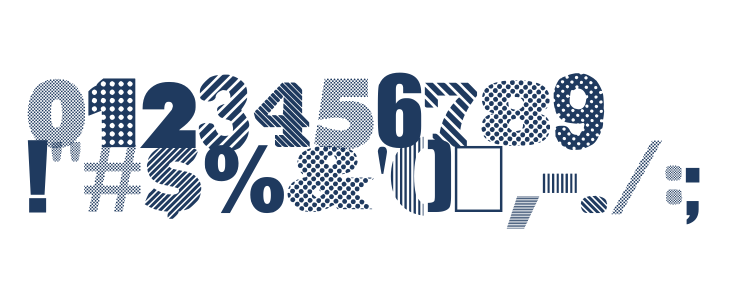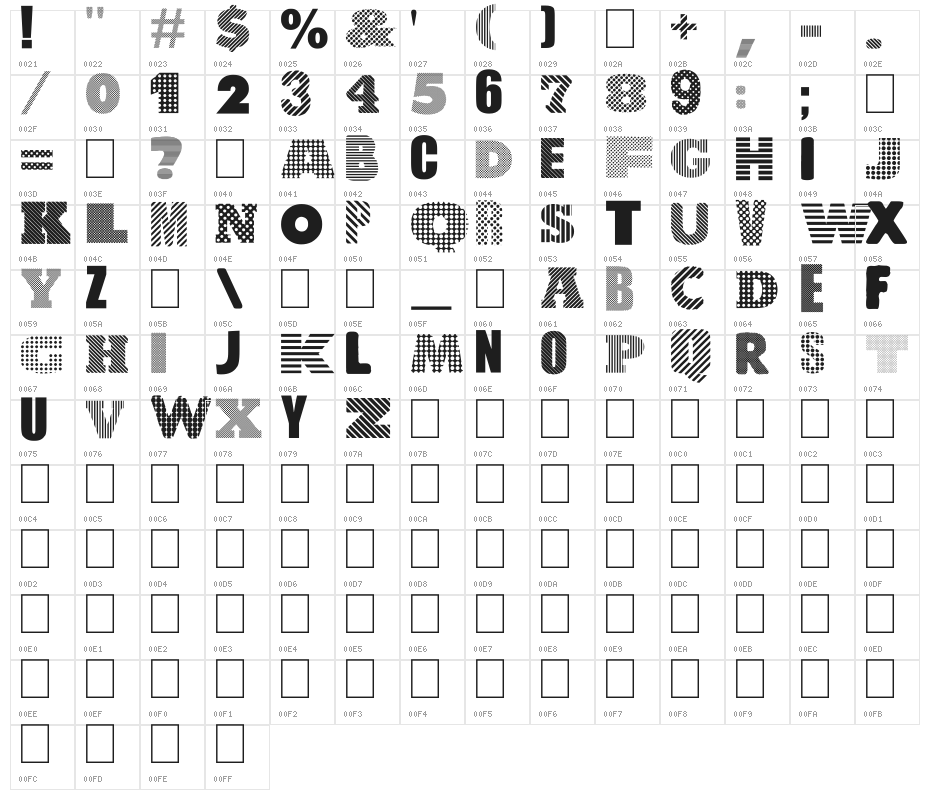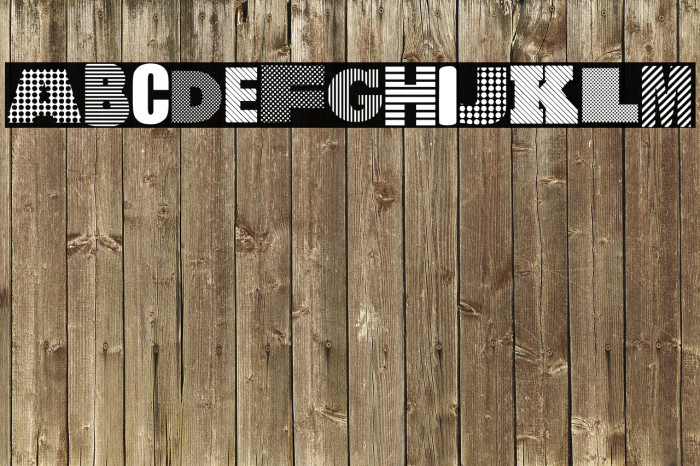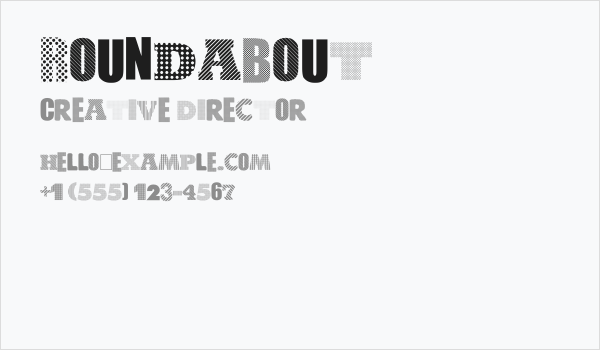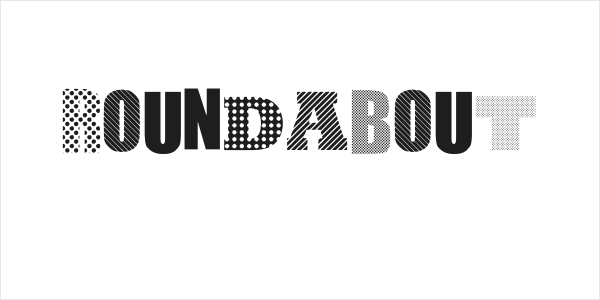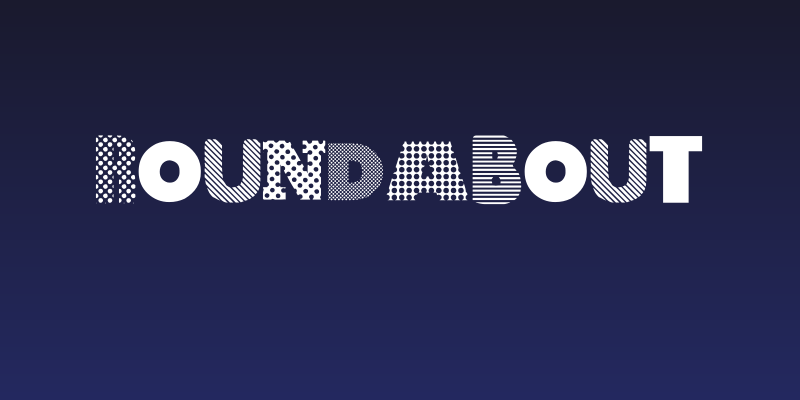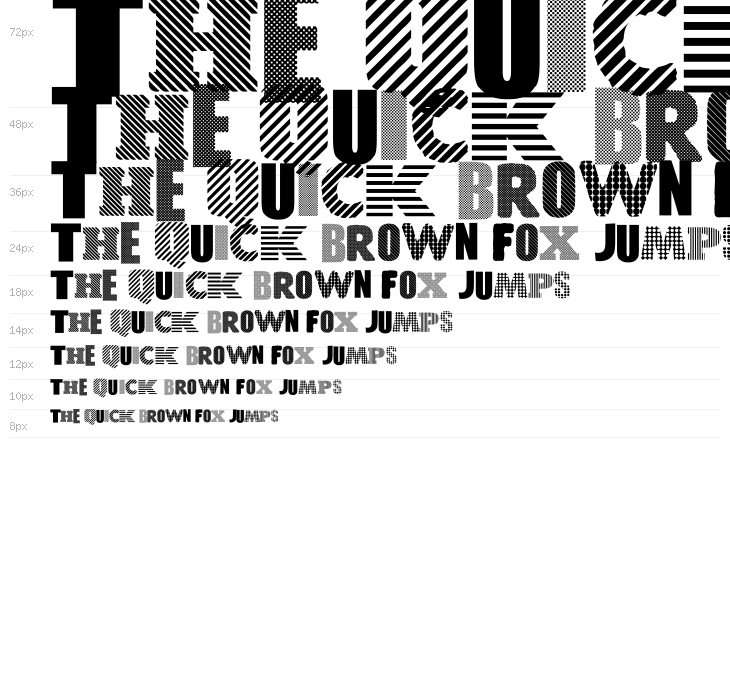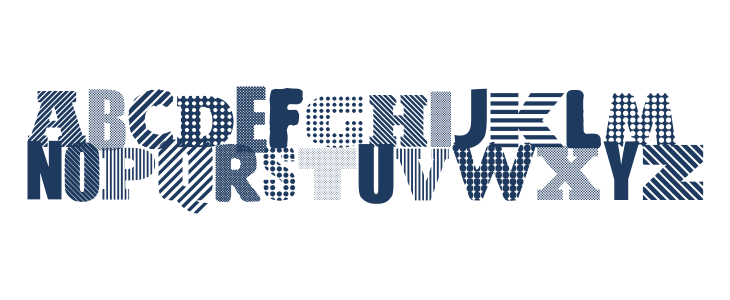
Roundabout Font
Roundabout Description
This font features a bold and playful design with a variety of patterns filling each character, including stripes, dots, and geometric shapes. The uppercase and lowercase letters, as well as numbers and special characters, all share this distinctive style, making it highly decorative and eye-catching. The font's unique texture and pattern variations give it a dynamic and modern feel, perfect for creative projects that require a standout typeface. Its boldness ensures visibility and impact, while the intricate patterns add a layer of visual interest.
| Proposed Projects | Ideal for posters, branding, album covers, and any project needing a bold, artistic touch. |